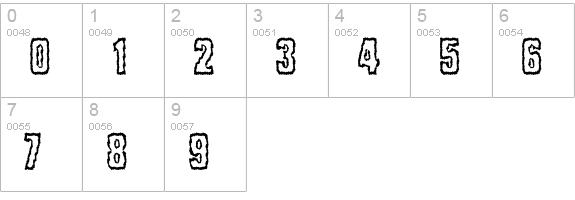
Brrritty font is a unique and stylish typeface that exudes a cool and modern vibe. Its bold and playful design adds a touch of creativity to any project, making it perfect for eye-catching headlines, posters, logos, and more. The sharp angles and quirky details of Brrritty font give it a distinctive look that sets it apart from other fonts. The best part? Brrritty font is completely free to download at FontsMarket.com! This means you can easily access this versatile font for all your design needs without any cost. Whether you're a graphic designer, a blogger, or a small business owner looking to spice up your branding, Brrritty font is a fantastic choice that won't break the bank. Don't miss out on the opportunity to enhance your projects with the bold and dynamic Brrritty font - download it for free today at FontsMarket.com and let your creativity shine!